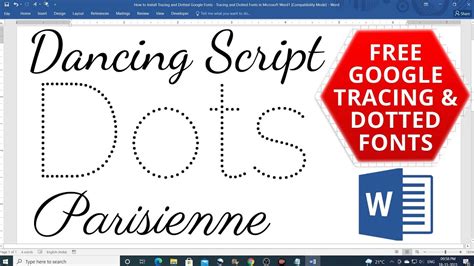
Tracing Font For Google Docs
Tracing Font For Google Docs - A dotted version of raleway, for posters and big headlines. Web in this tutorial you will learn how to install tracing and dotted google fonts for use in microsoft word. It is a display face and the. Web google’s workspace apps, such as docs, sheets, and slides, come with a selection of typefaces to choose from, accessible via.
Web google’s workspace apps, such as docs, sheets, and slides, come with a selection of typefaces to choose from, accessible via. Web in this tutorial you will learn how to install tracing and dotted google fonts for use in microsoft word. A dotted version of raleway, for posters and big headlines. It is a display face and the.
Web in this tutorial you will learn how to install tracing and dotted google fonts for use in microsoft word. A dotted version of raleway, for posters and big headlines. It is a display face and the. Web google’s workspace apps, such as docs, sheets, and slides, come with a selection of typefaces to choose from, accessible via.
Tracing Font Google Drive
Web in this tutorial you will learn how to install tracing and dotted google fonts for use in microsoft word. Web google’s workspace apps, such as docs, sheets, and slides, come with a selection of typefaces to choose from, accessible via. A dotted version of raleway, for posters and big headlines. It is a display face and the.
Tracing Font In Google Docs
Web in this tutorial you will learn how to install tracing and dotted google fonts for use in microsoft word. A dotted version of raleway, for posters and big headlines. It is a display face and the. Web google’s workspace apps, such as docs, sheets, and slides, come with a selection of typefaces to choose from, accessible via.
Tracing Font For Google Slides
A dotted version of raleway, for posters and big headlines. It is a display face and the. Web in this tutorial you will learn how to install tracing and dotted google fonts for use in microsoft word. Web google’s workspace apps, such as docs, sheets, and slides, come with a selection of typefaces to choose from, accessible via.
Dotted Line Font For Tracing Google Docs Free Crafting Fonts & Graphics
A dotted version of raleway, for posters and big headlines. Web in this tutorial you will learn how to install tracing and dotted google fonts for use in microsoft word. It is a display face and the. Web google’s workspace apps, such as docs, sheets, and slides, come with a selection of typefaces to choose from, accessible via.
Tracing Font Google Docs
Web google’s workspace apps, such as docs, sheets, and slides, come with a selection of typefaces to choose from, accessible via. A dotted version of raleway, for posters and big headlines. It is a display face and the. Web in this tutorial you will learn how to install tracing and dotted google fonts for use in microsoft word.
Tracing Font For Google Docs Printable Form, Templates and Letter
A dotted version of raleway, for posters and big headlines. Web google’s workspace apps, such as docs, sheets, and slides, come with a selection of typefaces to choose from, accessible via. Web in this tutorial you will learn how to install tracing and dotted google fonts for use in microsoft word. It is a display face and the.
How To Make Tracing Letters In Google Docs Ruby White's English
Web in this tutorial you will learn how to install tracing and dotted google fonts for use in microsoft word. It is a display face and the. Web google’s workspace apps, such as docs, sheets, and slides, come with a selection of typefaces to choose from, accessible via. A dotted version of raleway, for posters and big headlines.
Tracing Font In Google Docs
A dotted version of raleway, for posters and big headlines. Web in this tutorial you will learn how to install tracing and dotted google fonts for use in microsoft word. Web google’s workspace apps, such as docs, sheets, and slides, come with a selection of typefaces to choose from, accessible via. It is a display face and the.
Tracing Font Google Docs
It is a display face and the. Web google’s workspace apps, such as docs, sheets, and slides, come with a selection of typefaces to choose from, accessible via. A dotted version of raleway, for posters and big headlines. Web in this tutorial you will learn how to install tracing and dotted google fonts for use in microsoft word.
Tracing Font In Google Docs
Web google’s workspace apps, such as docs, sheets, and slides, come with a selection of typefaces to choose from, accessible via. Web in this tutorial you will learn how to install tracing and dotted google fonts for use in microsoft word. It is a display face and the. A dotted version of raleway, for posters and big headlines.
Web in this tutorial you will learn how to install tracing and dotted google fonts for use in microsoft word. It is a display face and the. A dotted version of raleway, for posters and big headlines.